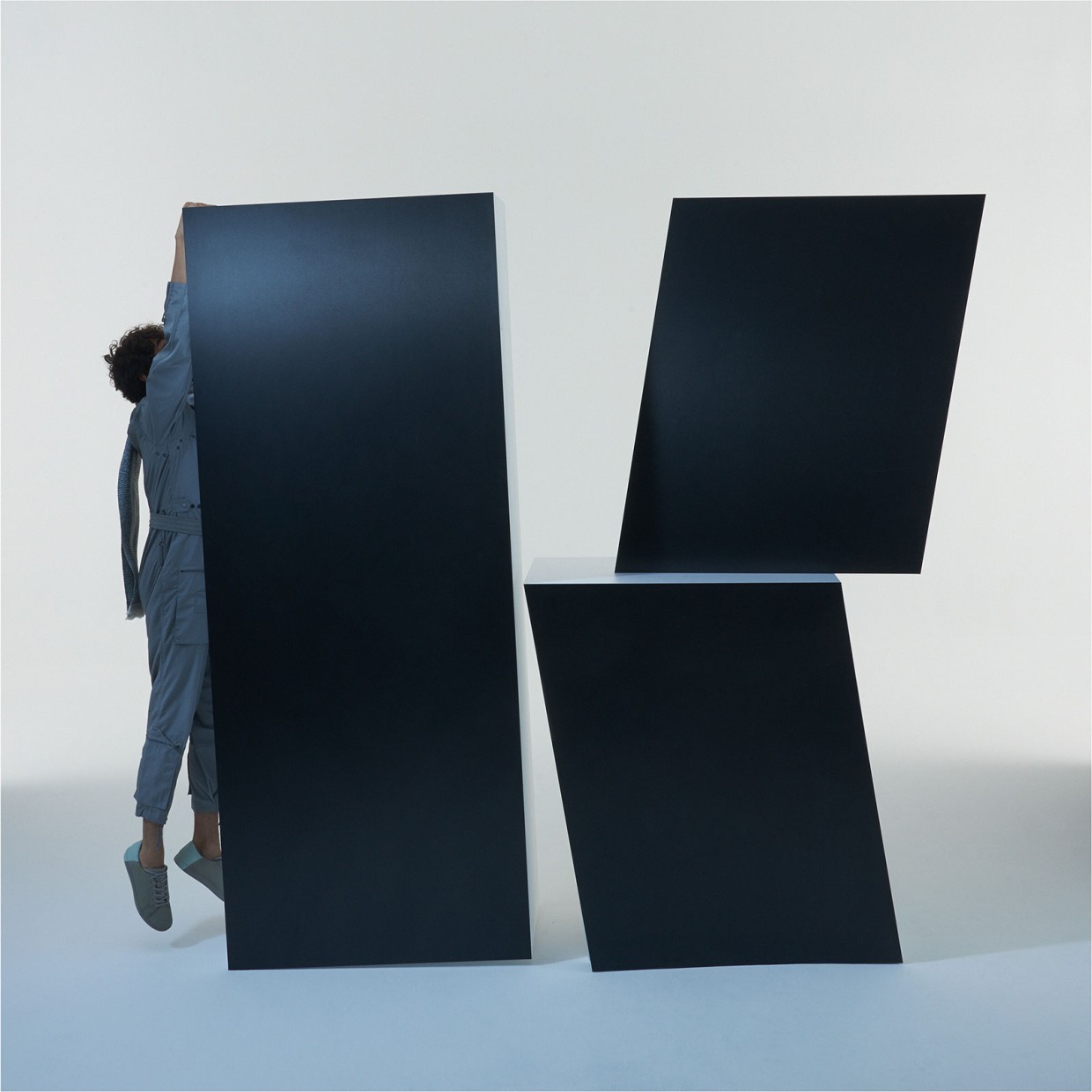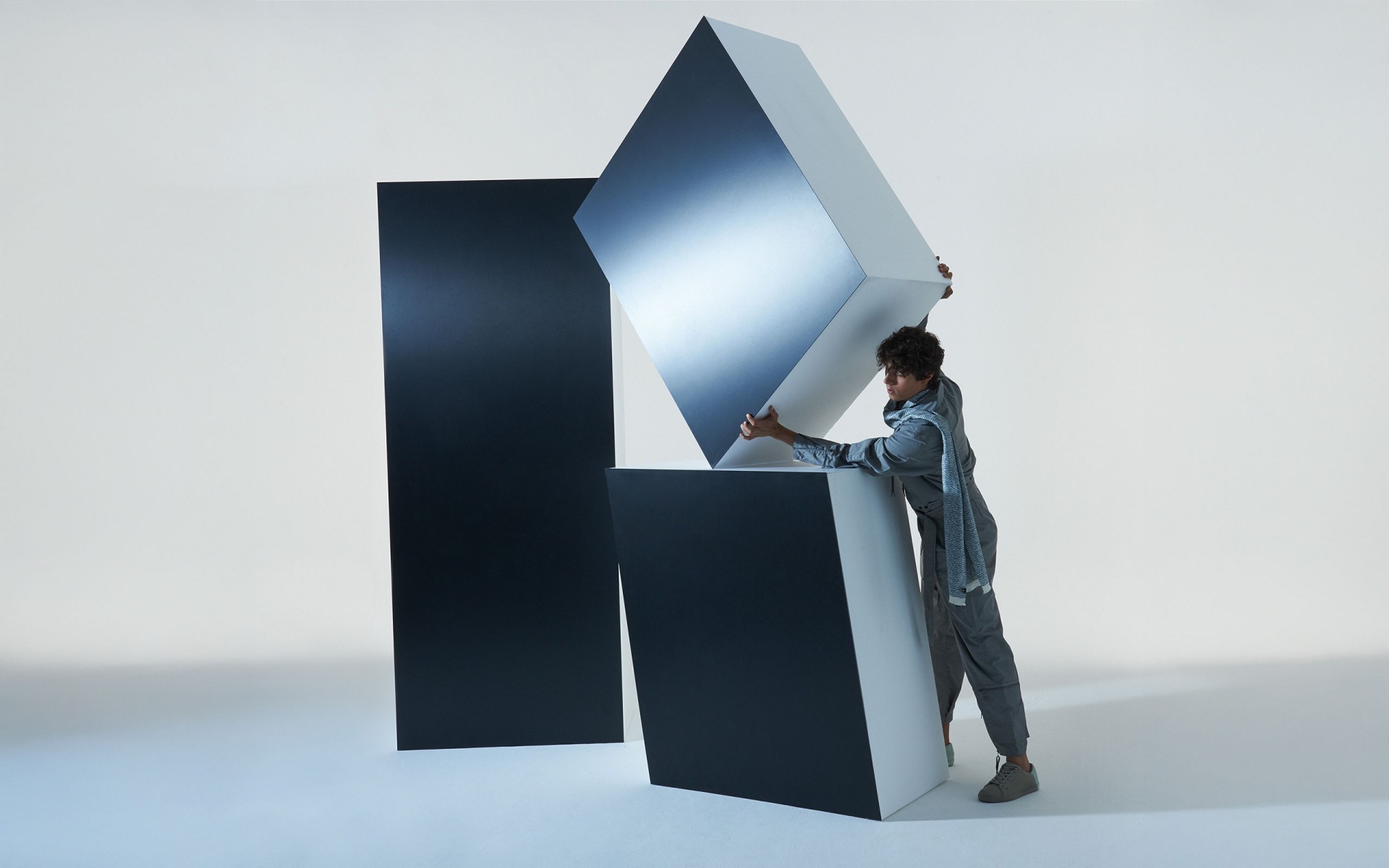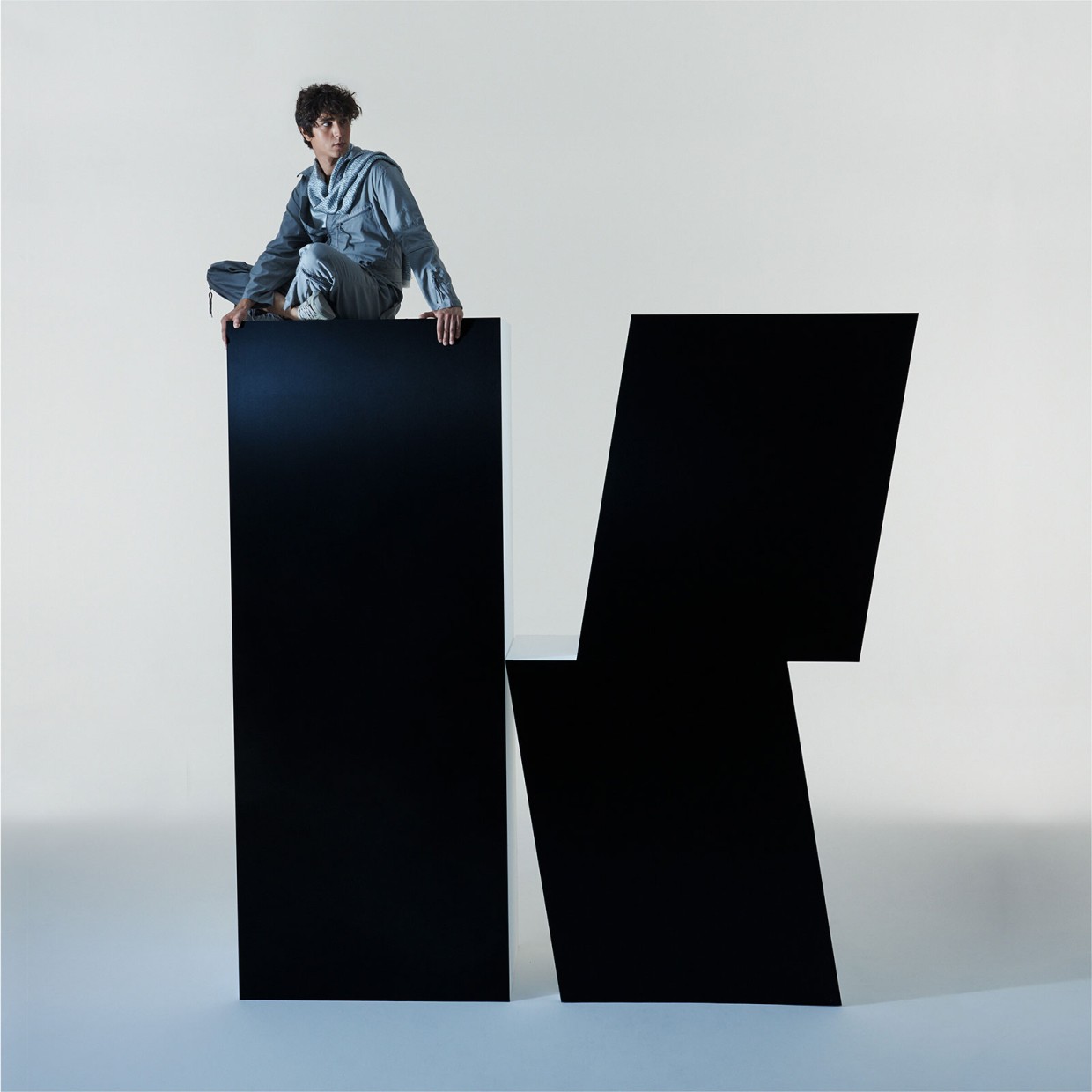
French design studio deValence was asked to art direct the visual identity of pop artist Kazy Lambist and to design his album and EPs covers. They engaged a collaboration with photograph Grégoire Alexandre on a series of images around the construction of a monolithic giant “K”. deValence commissioned the creation of a custom display typeface for his logotype and a monospaced text version with italic for the album, posters and EPs.